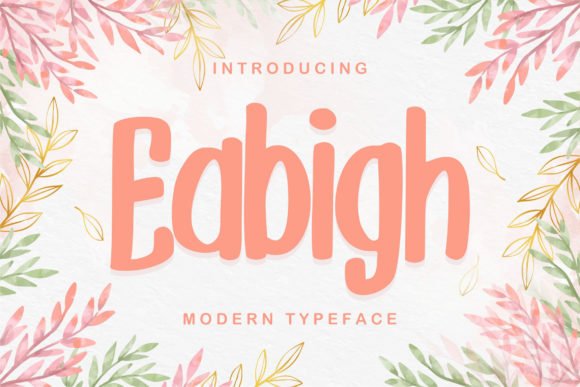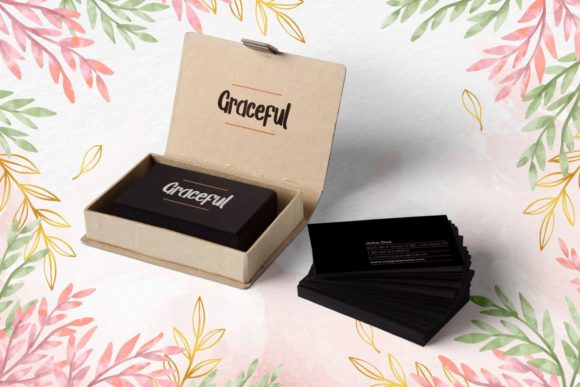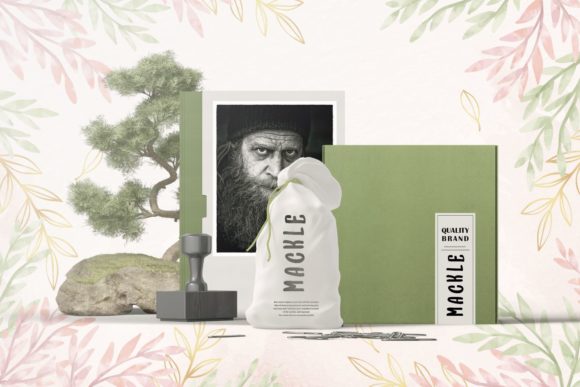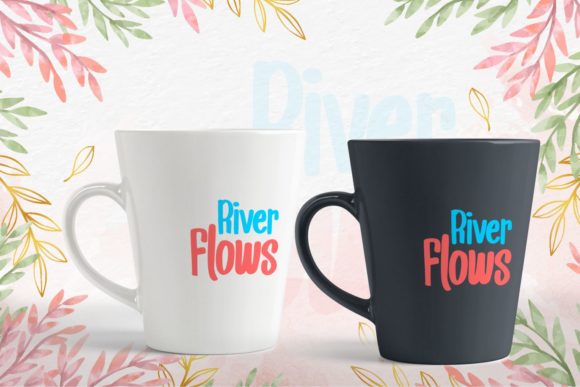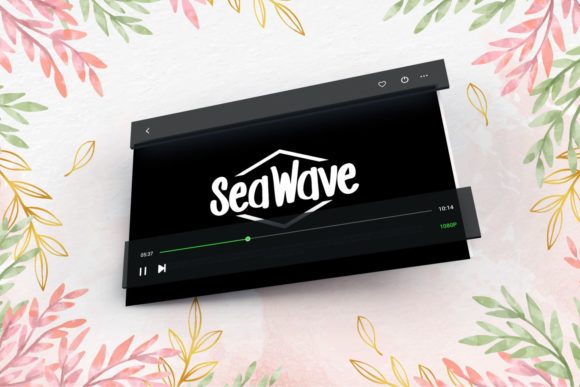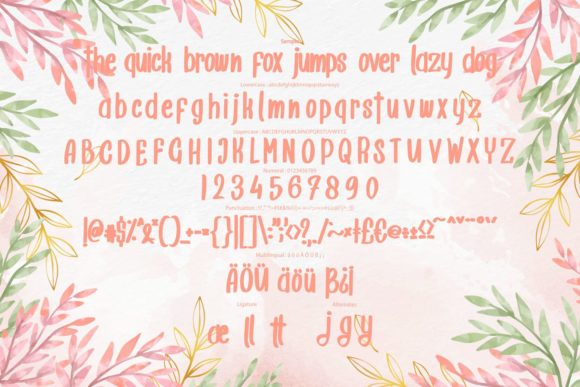
Discover the Charm of Eabigh Font
Who hasn’t experienced that moment of pure creative bliss when a font finally clicks, and you know exactly what to do with it? It’s a feeling that never gets old, and for designers, it’s what drives us to keep pushing the boundaries of our craft. For those in search of that elusive perfect font, we’re excited to introduce you to Eabigh Font, a delightful display font that’s sure to become a true favorite.
Carefully handcrafted to capture a casual, down-to-earth charm, Eabigh Font is the perfect solution for designers looking to add a touch of personality to their projects. Its versatility makes it an excellent choice for use on busy backgrounds or as a standalone headline, and its readability ensures that your message will never get lost in the mix. Whether you’re a seasoned pro or just starting out, Eabigh Font is an invaluable addition to your design toolkit.
Eabigh Font Key Features
- Unique Characteristics: The font features a unique blend of modern and traditional elements, with a distinctive flair that sets it apart from other fonts.
Eabigh Font Review
I recently had the chance to work with the Eabigh font, and I must say, it has its strengths and weaknesses.
- Unique Design**: Eabigh has a distinctive, modern aesthetic that sets it apart from more traditional fonts.
- High Legibility**: This font is well-suited for body text, as it’s easy to read even at smaller font sizes.
- Wide Character Support**: Eabigh supports a wide range of languages, making it a great choice for international projects.
- Limited Expressiveness**: While Eabigh is great for body text, it may not be the best choice for headings or titles, as it lacks the drama and flair that some other fonts offer.
- No Italic or Bold Variants**: Currently, there are no italic or bold variants available for Eabigh, which can limit its versatility.
Eabigh is a solid, reliable font that excels in certain areas, but falls short in others. While it may not be the most exciting or expressive font, it’s a great choice for projects that require a clean, modern aesthetic and high legibility. With some additional variants and expressiveness, Eabigh could be a top contender in the font world.
Tips for Getting the Most Out of Eabigh Font
Use Eabigh font for headings and titles to add a touch of elegance and sophistication to your designs. Pair it with bold fonts for maximum impact. Experiment with different font sizes and colors to create a visually appealing contrast.
Eabigh font is suitable for various design projects, including:
– Luxury branding and marketing materials
– High-end product packaging and labeling
– Fashion and beauty advertising and promotional materials
– Corporate identity and business communications